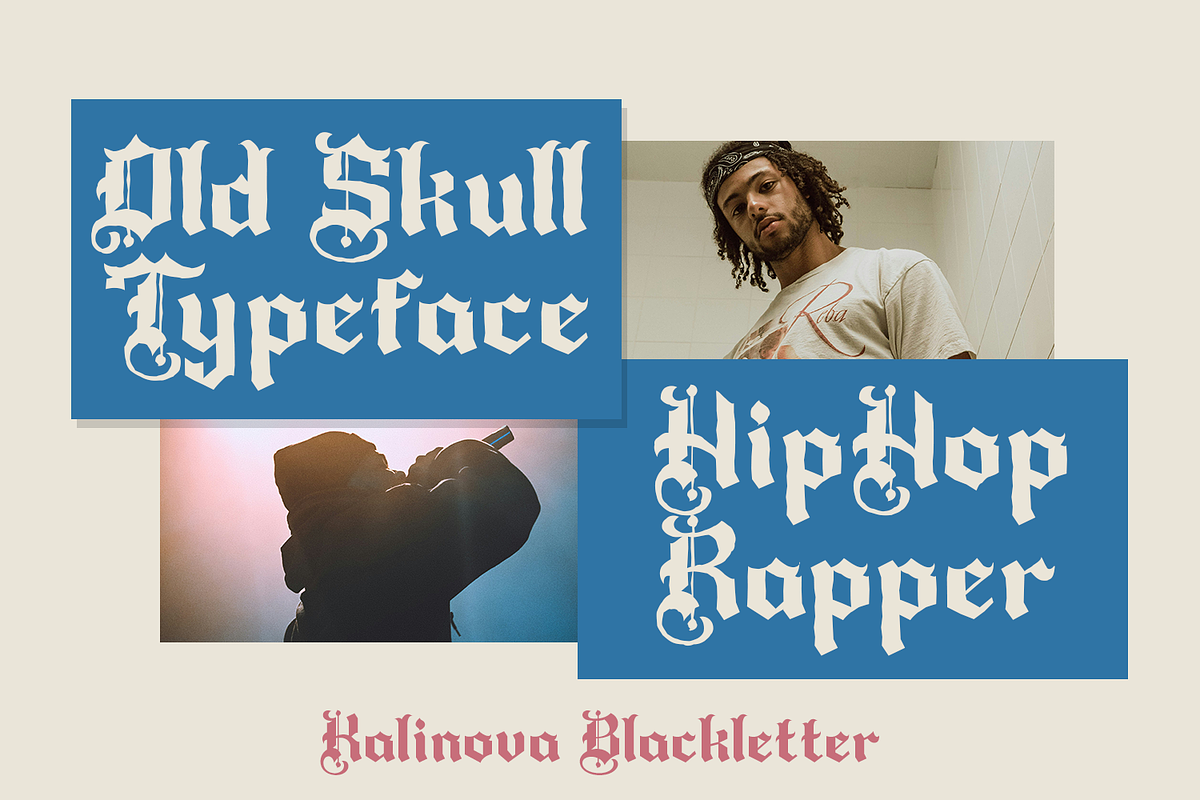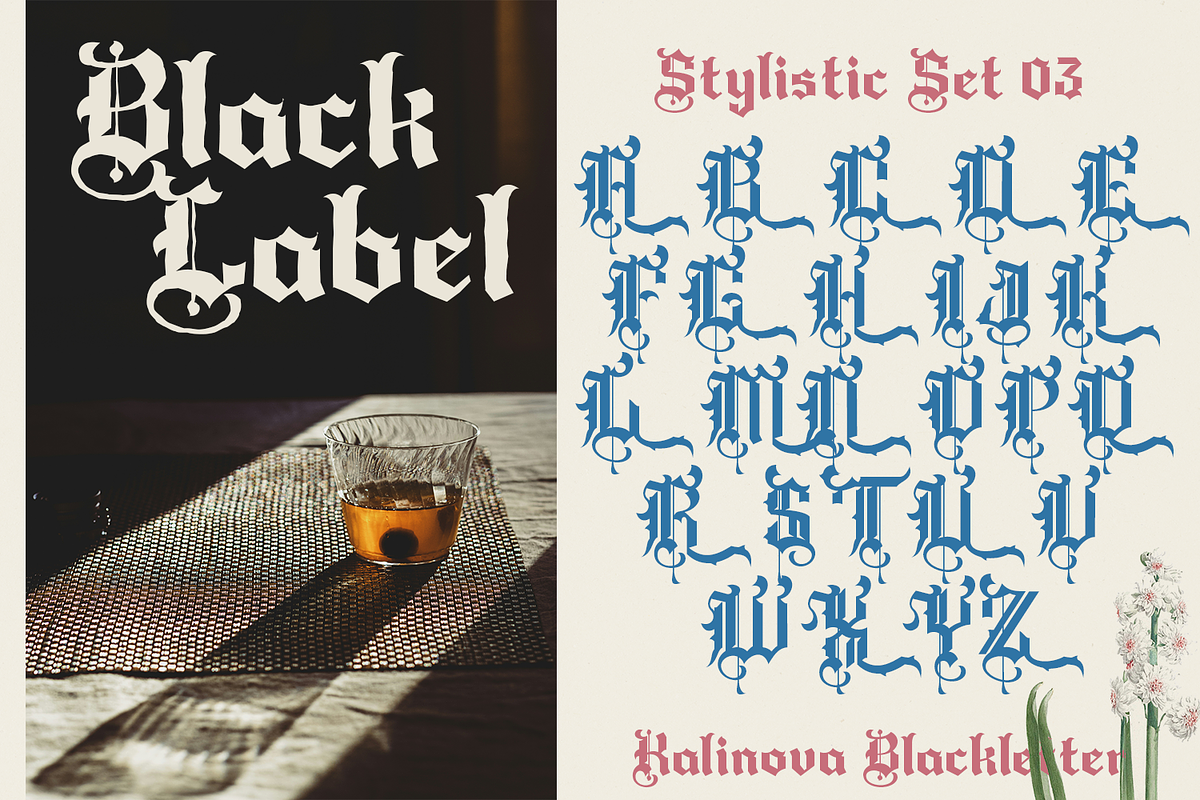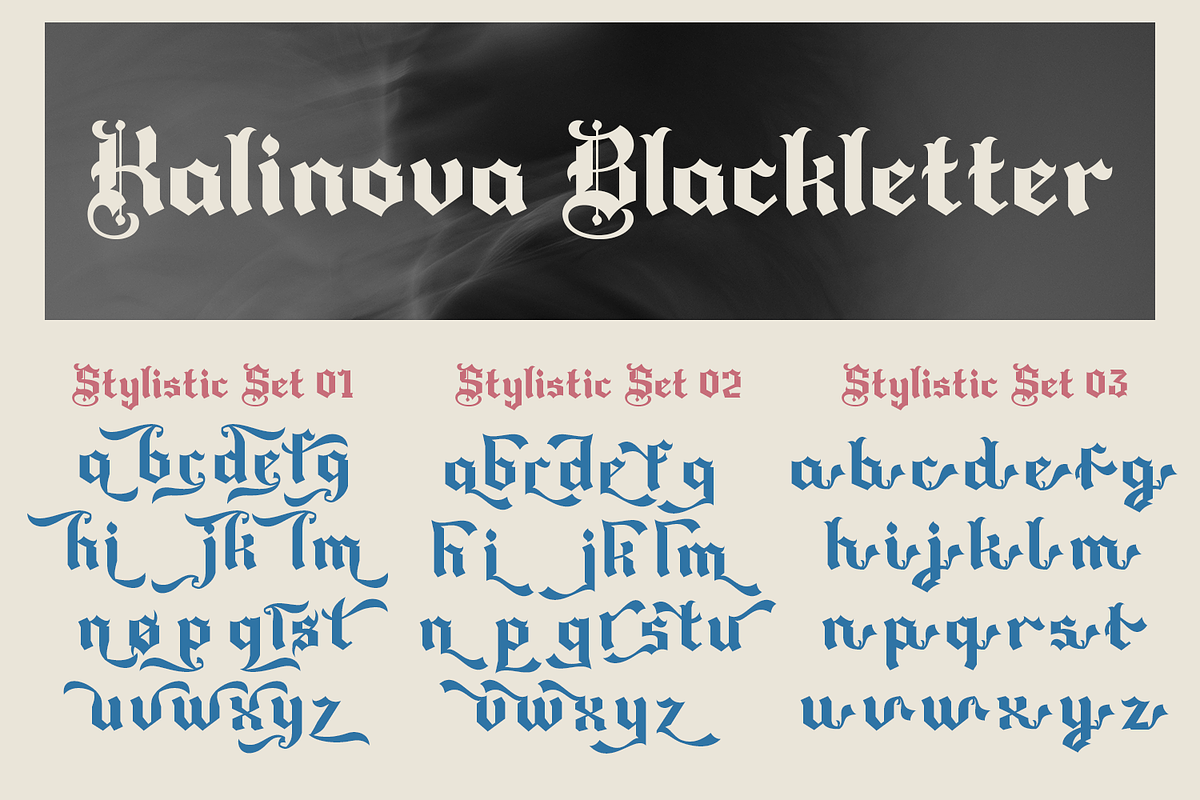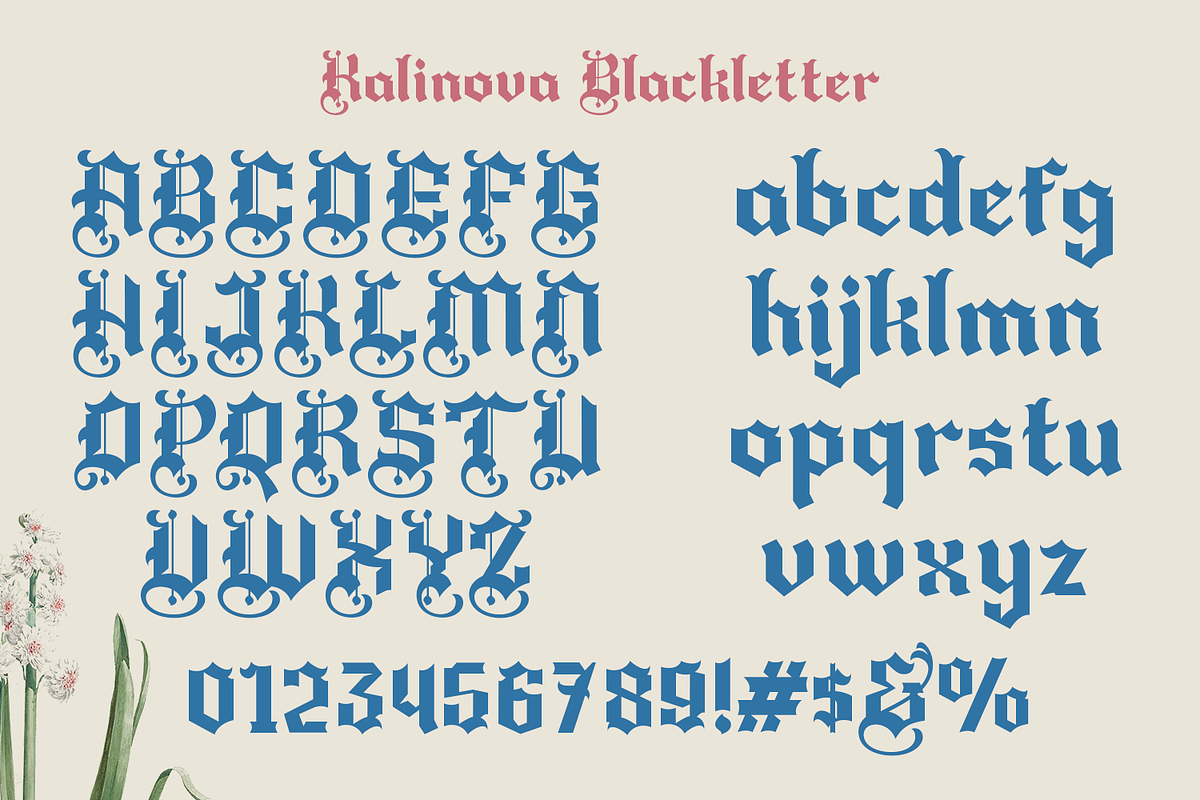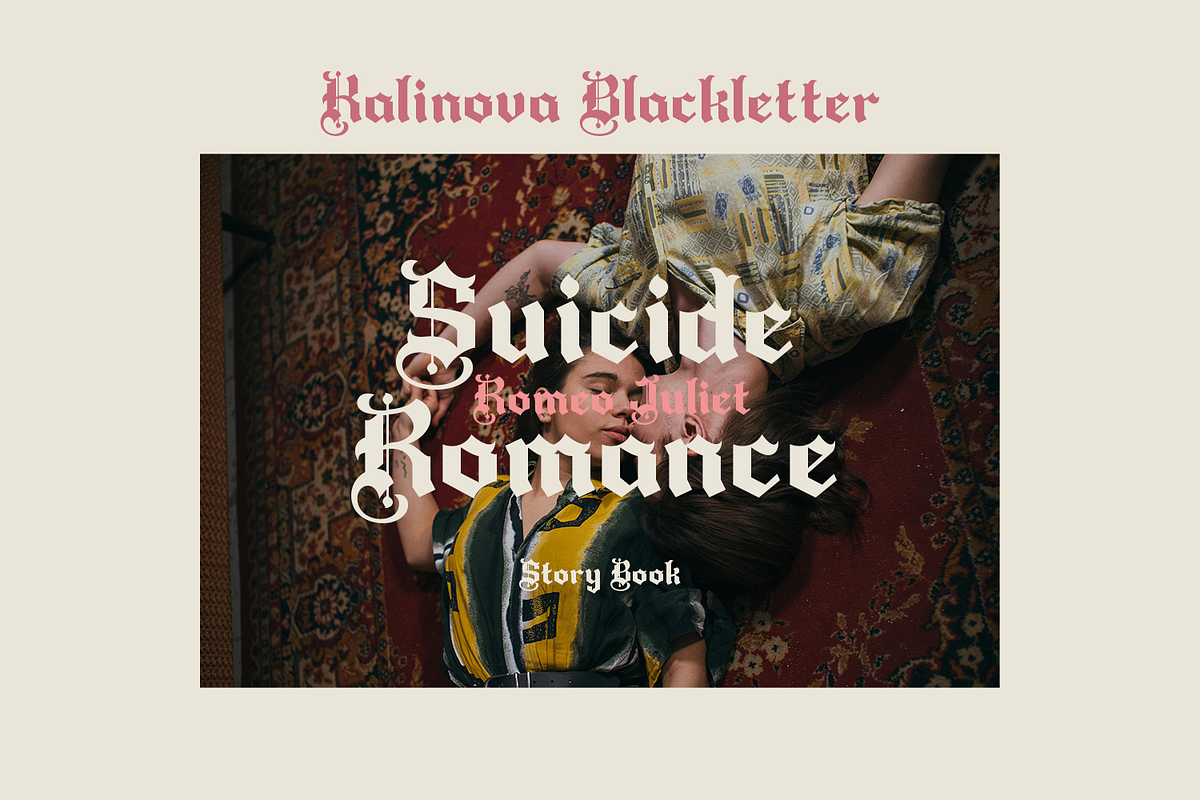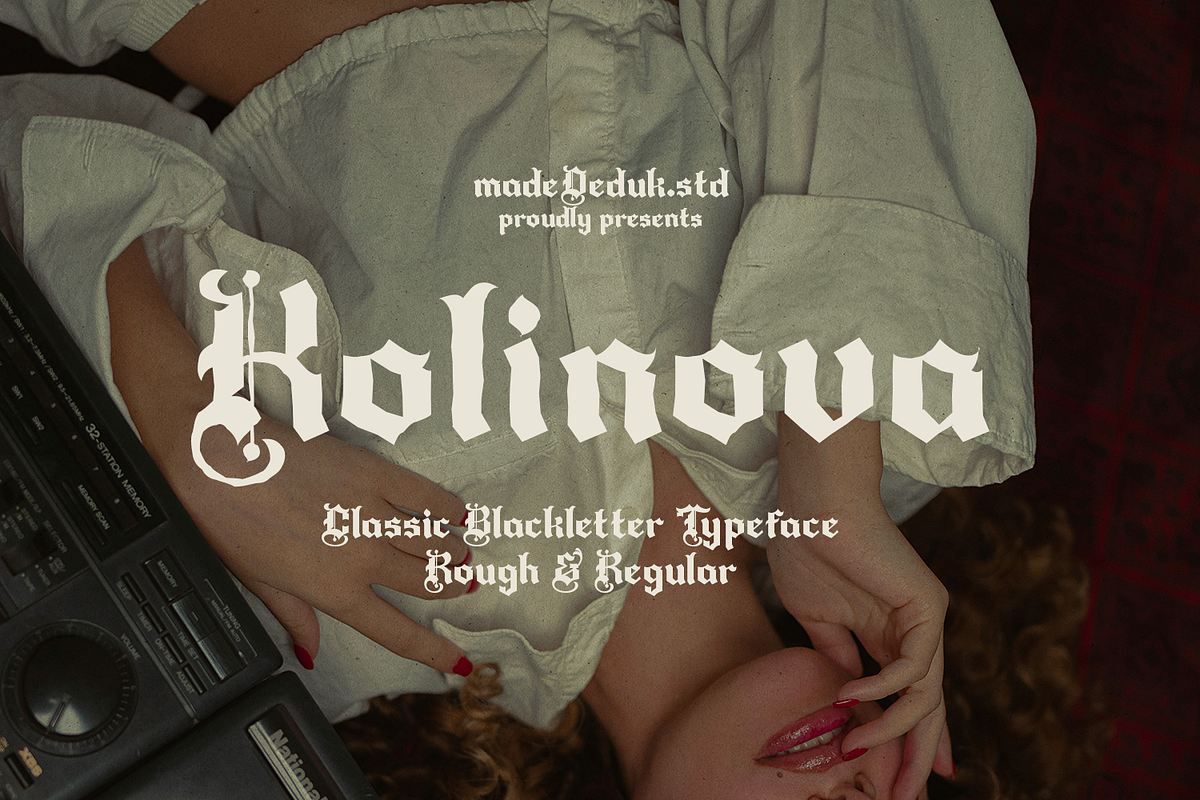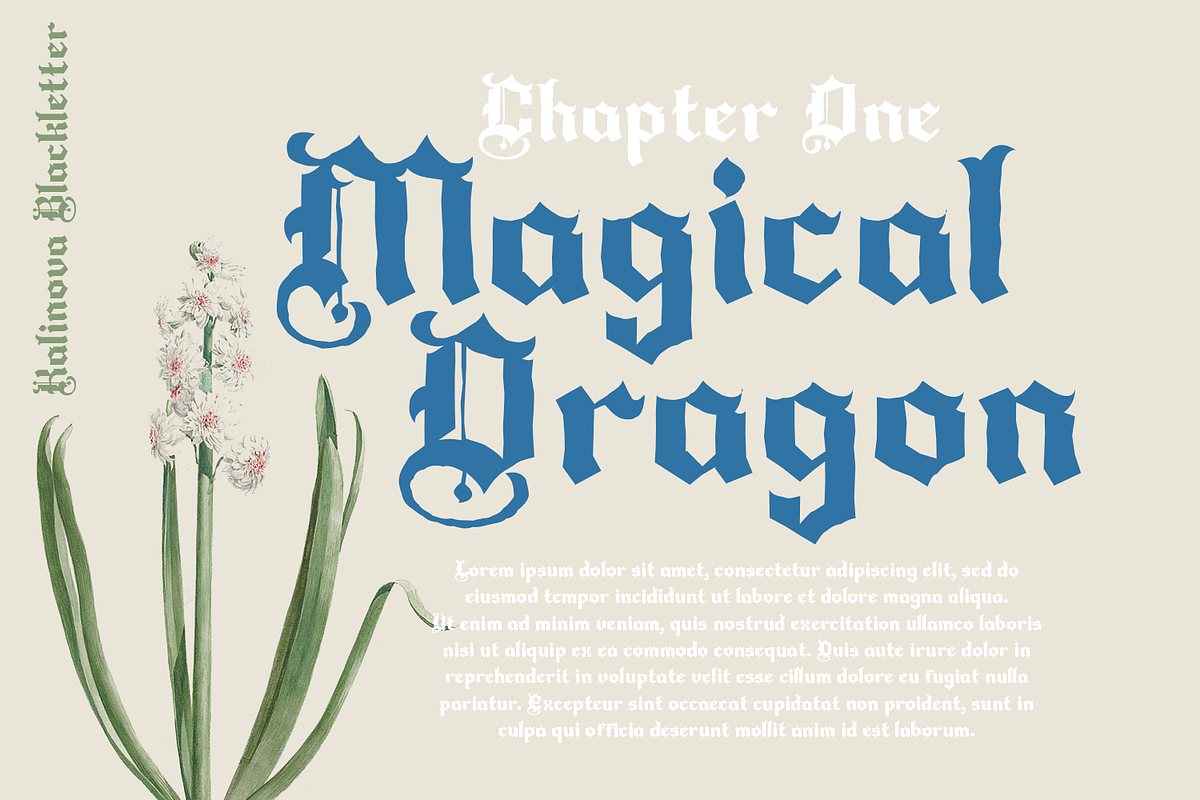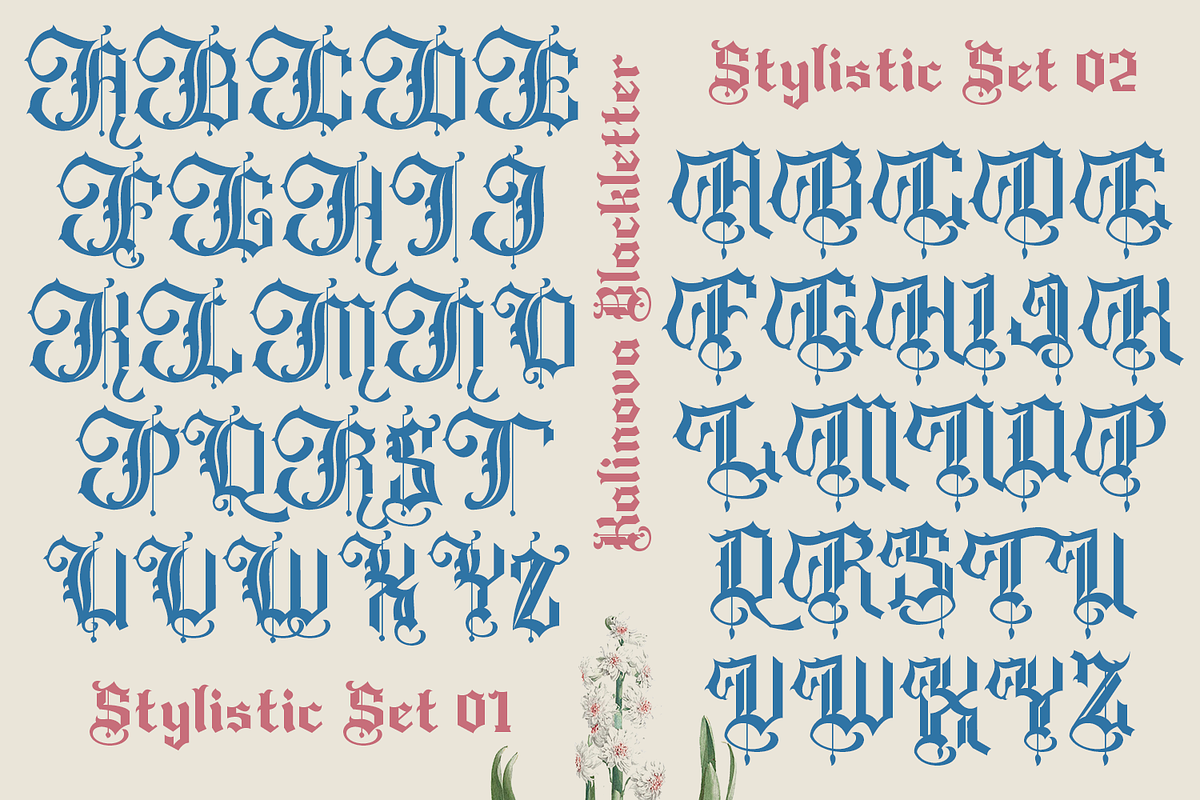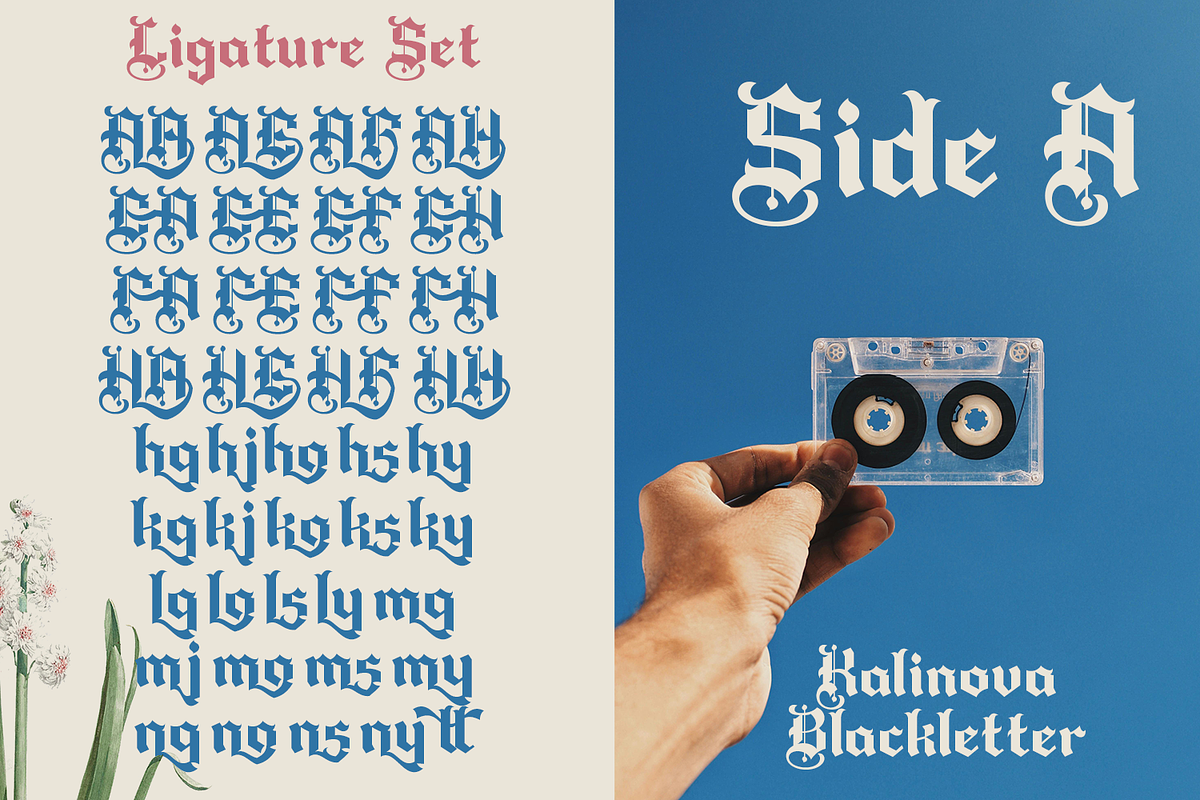
Kolinova Blackletter
Introducing Kolinova classic blackletter typefaces, characterized by their bold, dramatic strokes and intricate detailing. Every character in this font has been meticulously making your text stand out with a rugged, vintage charm. comes with a rich set of ligatures and alternate characters. This font is perfect for branding, logo design, cover design, books, magazines, apparel designs, headlines, etc.